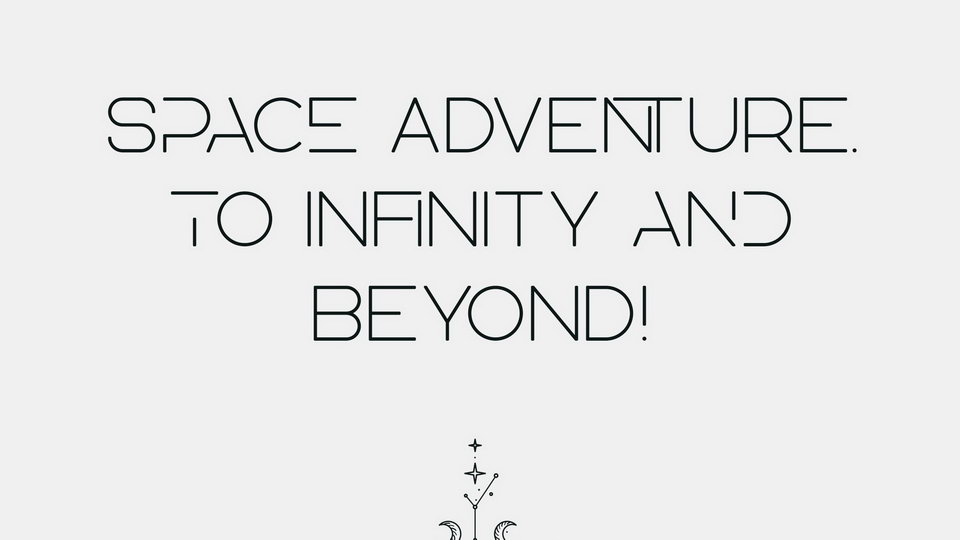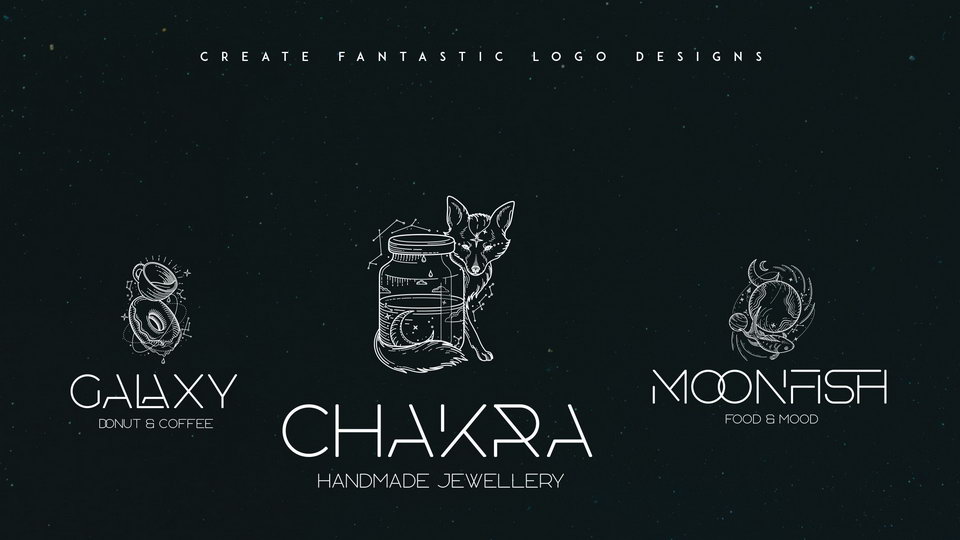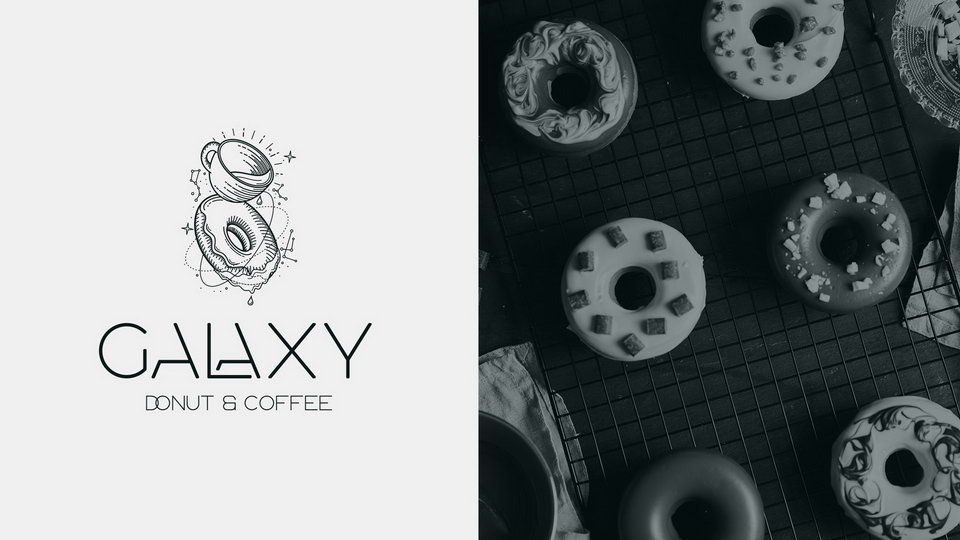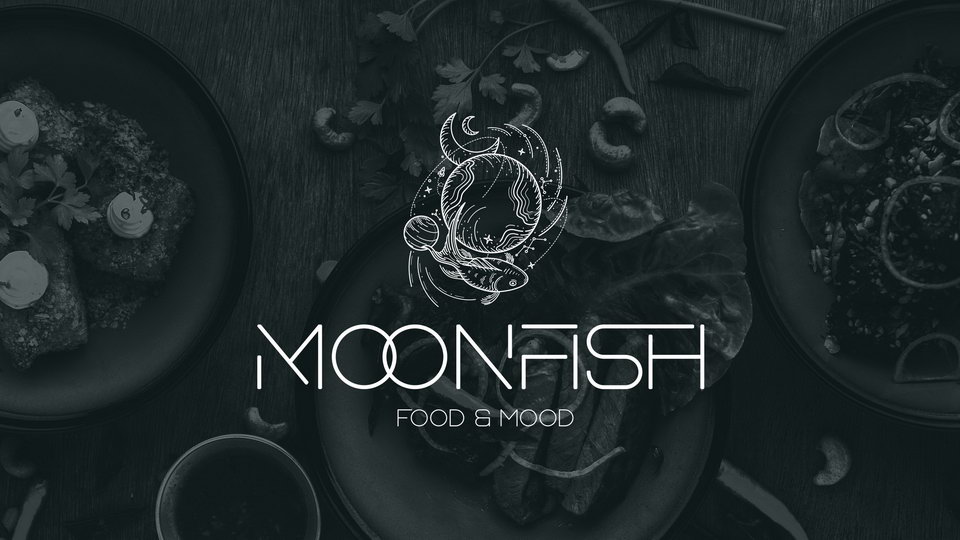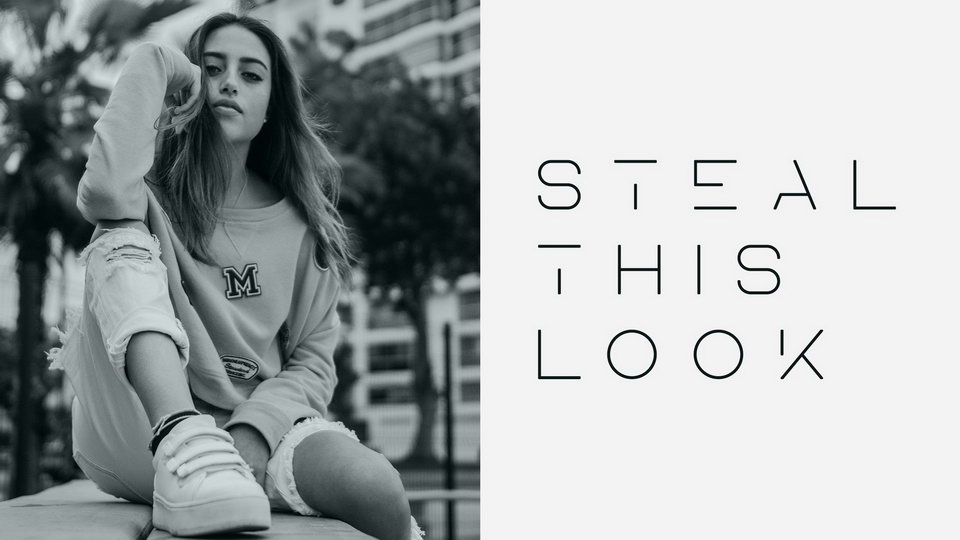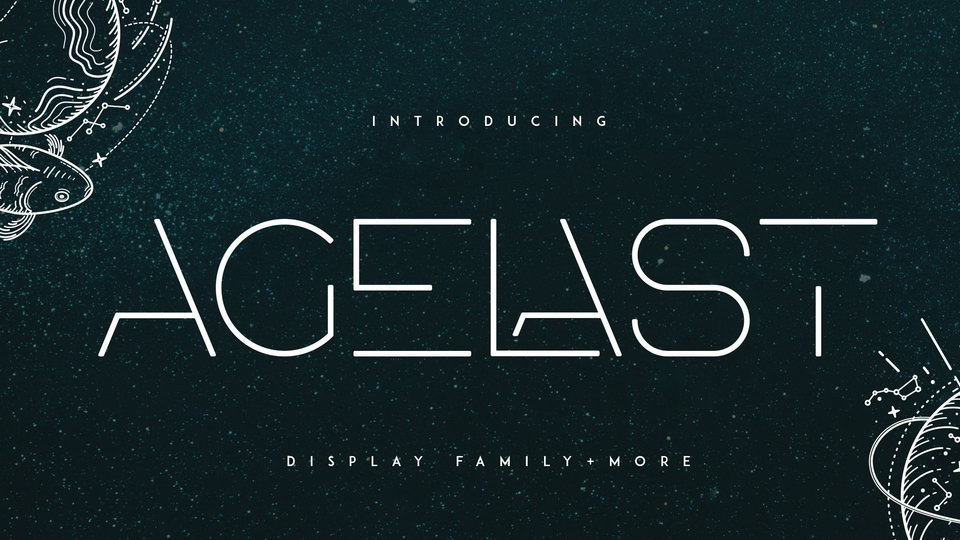
Agelast Font
Agelast is a clean, futuristic typeface with 6 fonts, 10 breathtaking illustrations, 71 photoshop styles and multilingual support. It’s a very versatile font that works great in large and small sizes.
Agelast is perfect for branding projects, home-ware designs, product packaging, magazine headers – or simply as a stylish text overlay to any background image.
Uppercase, numeral, punctuation & Symbol
Ligatures
Multilingual support